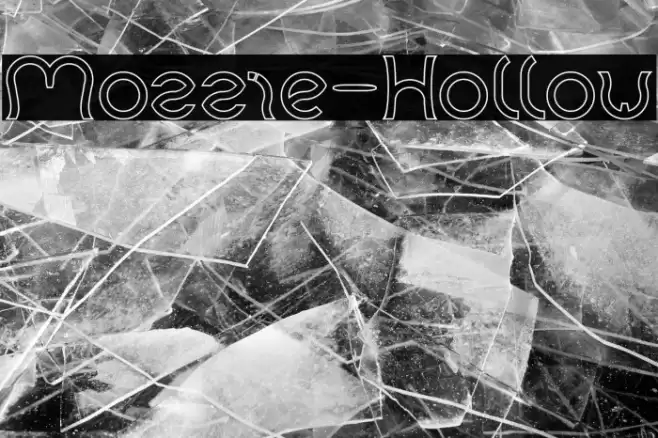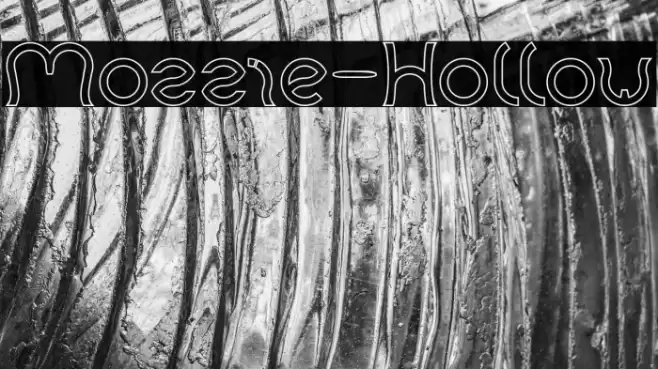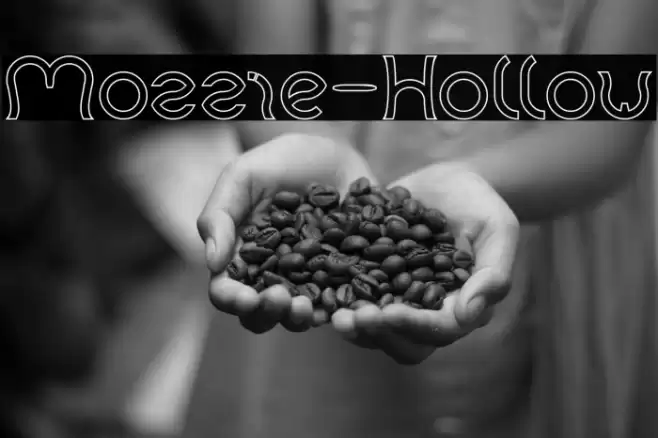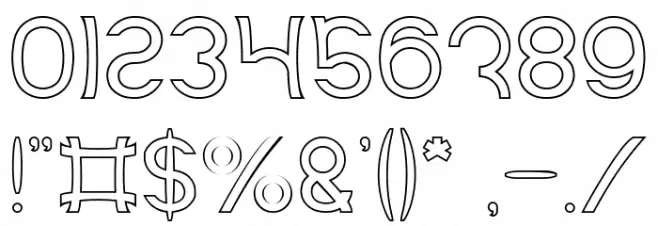
Mozzie-Hollow Font
Mozzie-Hollow Description
This font features a hollow, outline style with a playful and unique design. The characters have a whimsical, curved appearance, giving them a distinctive and artistic flair. The uppercase and lowercase letters maintain a consistent style, with rounded edges and a sense of movement. The numbers and special characters follow the same design principles, ensuring a cohesive look across all glyphs. This font's open structure makes it ideal for creative projects where a lighthearted and fun aesthetic is desired.
A playful, hollow outline font with whimsical curves and artistic flair from Uncategorized fonts.
- Proposed Projects: Ideal for children's books, playful branding, creative posters, and artistic invitations.